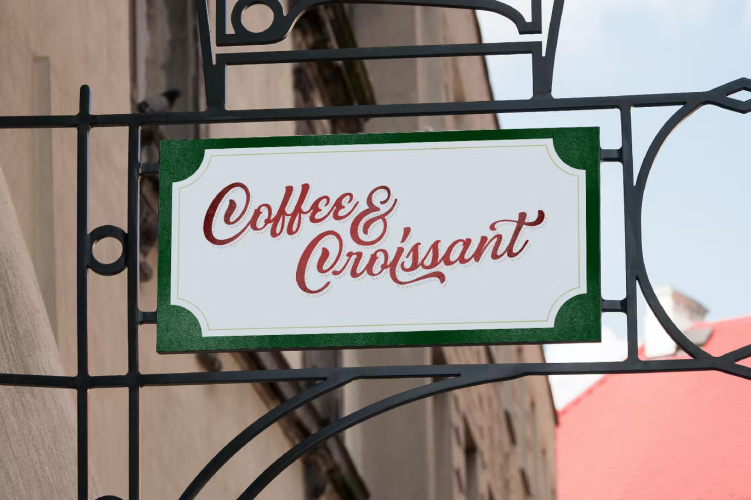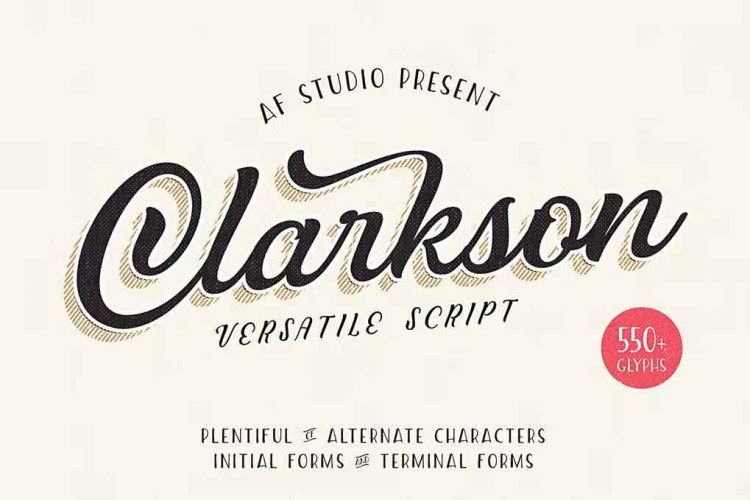
Clarkson Script Font
Brand new stylish versatile fonts ! In collaborating with Albion Room. Fresh from the oven as inspired to create easy digital lettering for you. Characters included more than 550+, check the display no 3. Also comes with lots of alternate characters lowercase and uppercase, ligatures, setting up for easy use on the initial and terminal forms. It will be great for Logotypes, Posters, Digital Lettering Arts, Clean design, Branding Design, Sign, etc.
Where Clarkson Script Font works best
A short phrase in Clarkson Script Font carries warmth that a typeset sans cannot fake; keep the rest of the card plain.
Chalkboard-style headings in Clarkson Script Font make a menu feel hand-made. Keep the dish descriptions in a simple face so prices stay readable.
One line of Clarkson Script Font over a photo is enough; the script carries the tone and the caption does the work.
What kind of work does Clarkson Script Font suit?
It sits in the Script And Handwritten group and reads as branding, clean, display, script. That makes it a candidate wherever those qualities help: headings, packaging, social graphics and brand work. Set it at the size you plan to use before deciding.